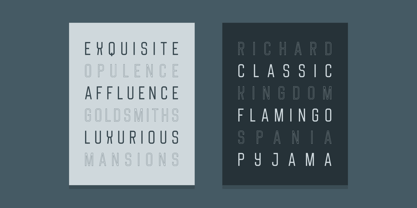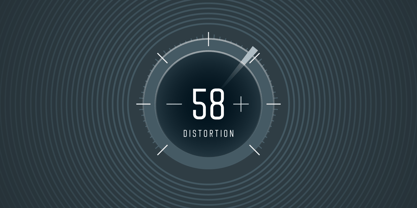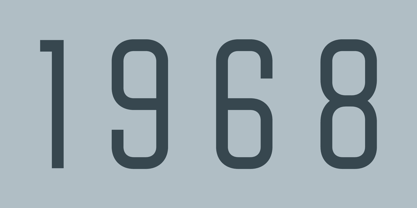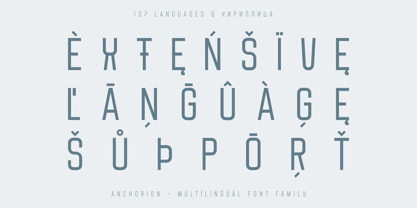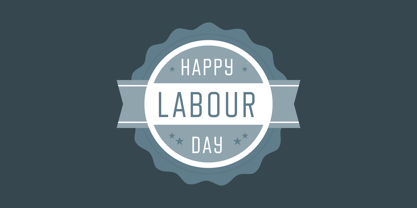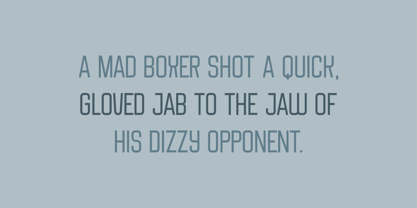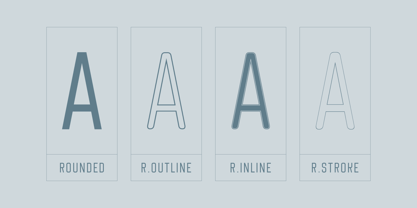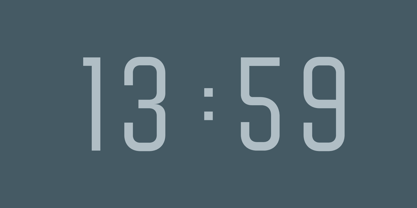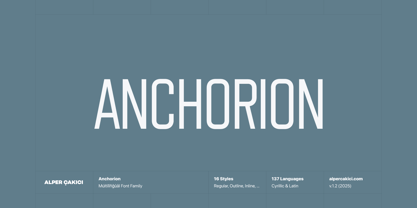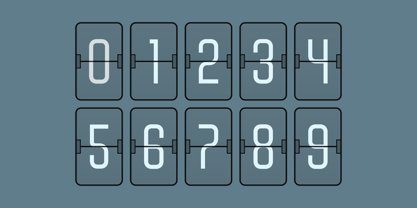
Anchorion
by AlperCakici
The Anchorion Font Family was designed by Alper Çakıcı and published by AlperCakici. Anchorion contains 16 styles and family package options. More about this family
Anchorion is a geometric sans with presence — clean, confident, and crafted for impact. Its precise geometry and subtle rounded contours strike the perfect balance between modern minimalism and bold expression. With 16 meticulously designed styles, Anchorion offers complete creative versatility — from sleek inline and outline cuts to commanding ultra-black weights. Whether in print or on screen, it delivers exceptional clarity for logos, headlines, posters, packaging, and brand identities. Every curve, counter, and connection has been refined for harmony: balanced proportions, smooth transitions, and a distinctive edge that maintains its strength in any layout. ✨ Inside the family: • 16 fonts — including Regular, Inline, Outline, Rounded, Stroke, and matching Italics • Clean geometric construction with a modern, polished finish • Perfect for bold titles, refined headers, and timeless identities • Supports 137 languages, including Cyrillic coverage With finely tuned kerning and precise spacing, Anchorion ensures professional results across all mediums. Merging classic geometric balance with a confident contemporary spirit, it’s a typeface made for creators who value precision, clarity, and character.